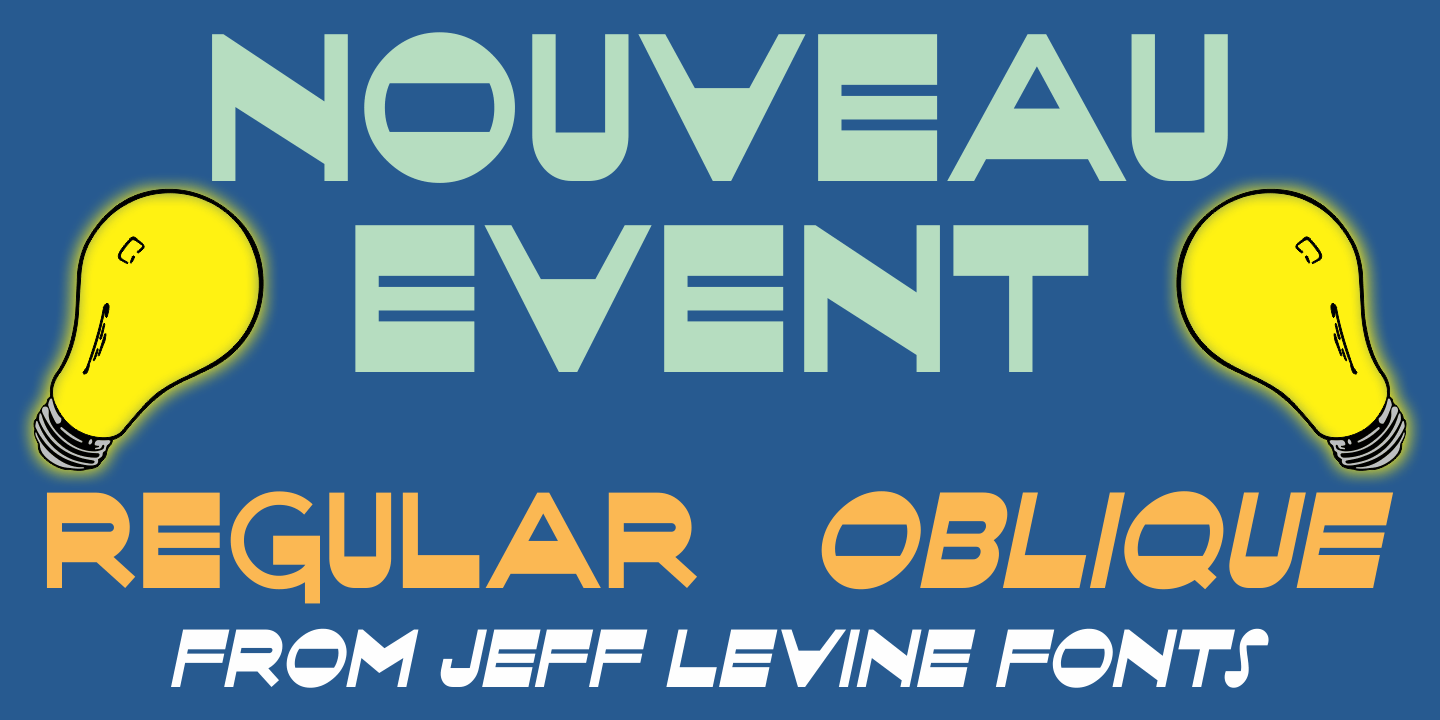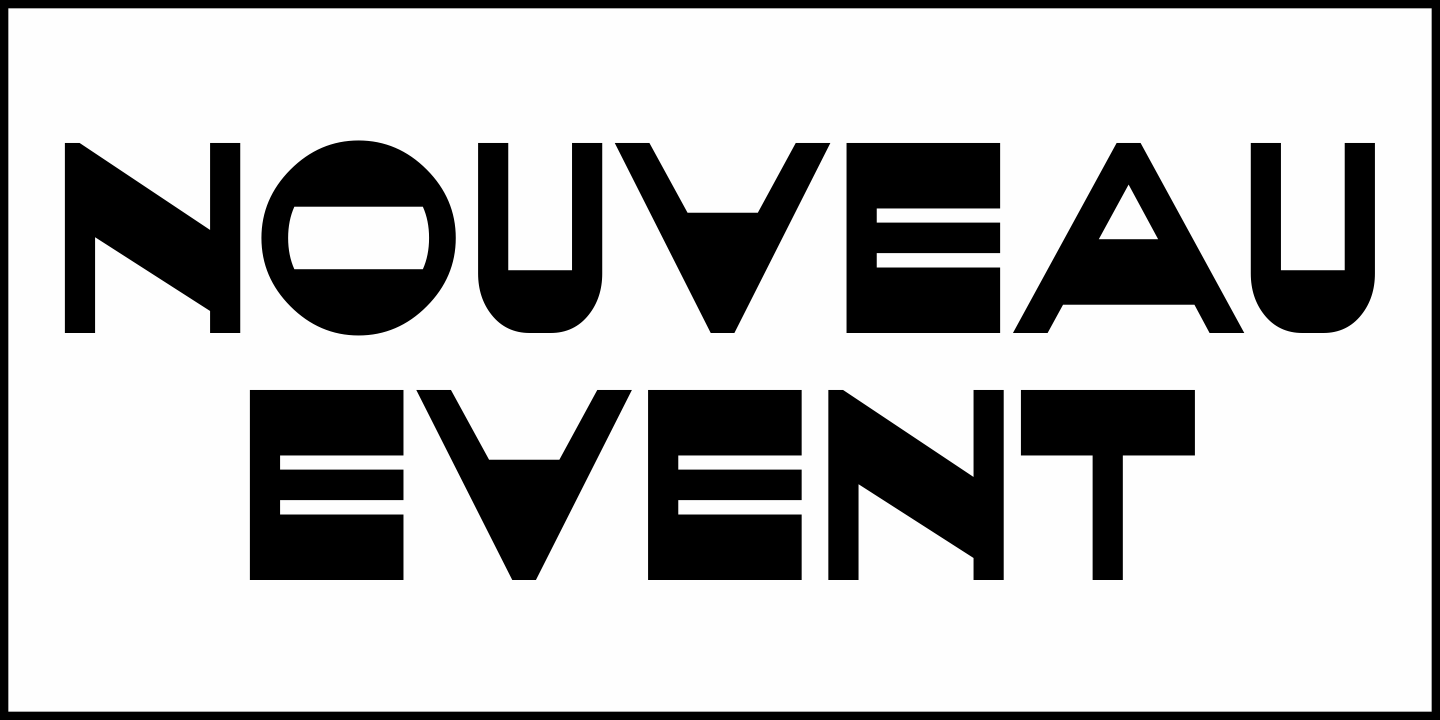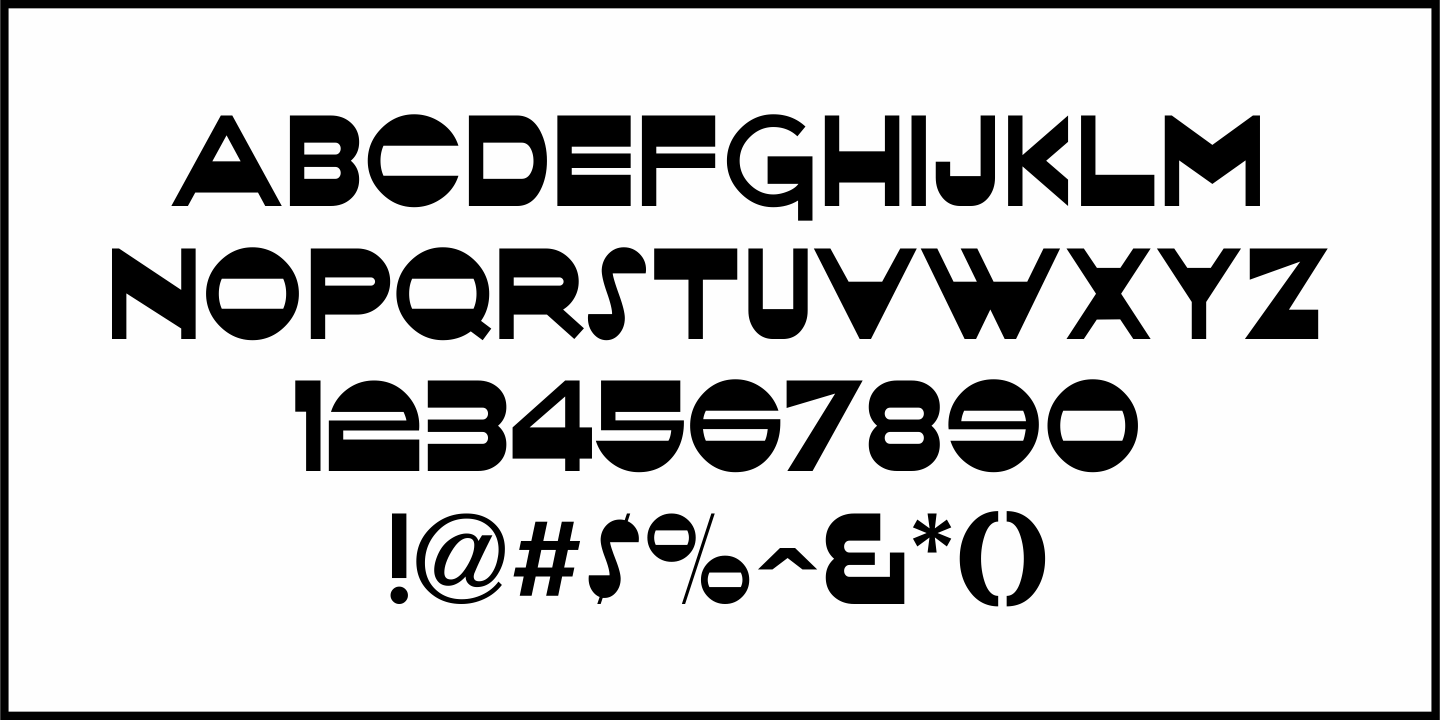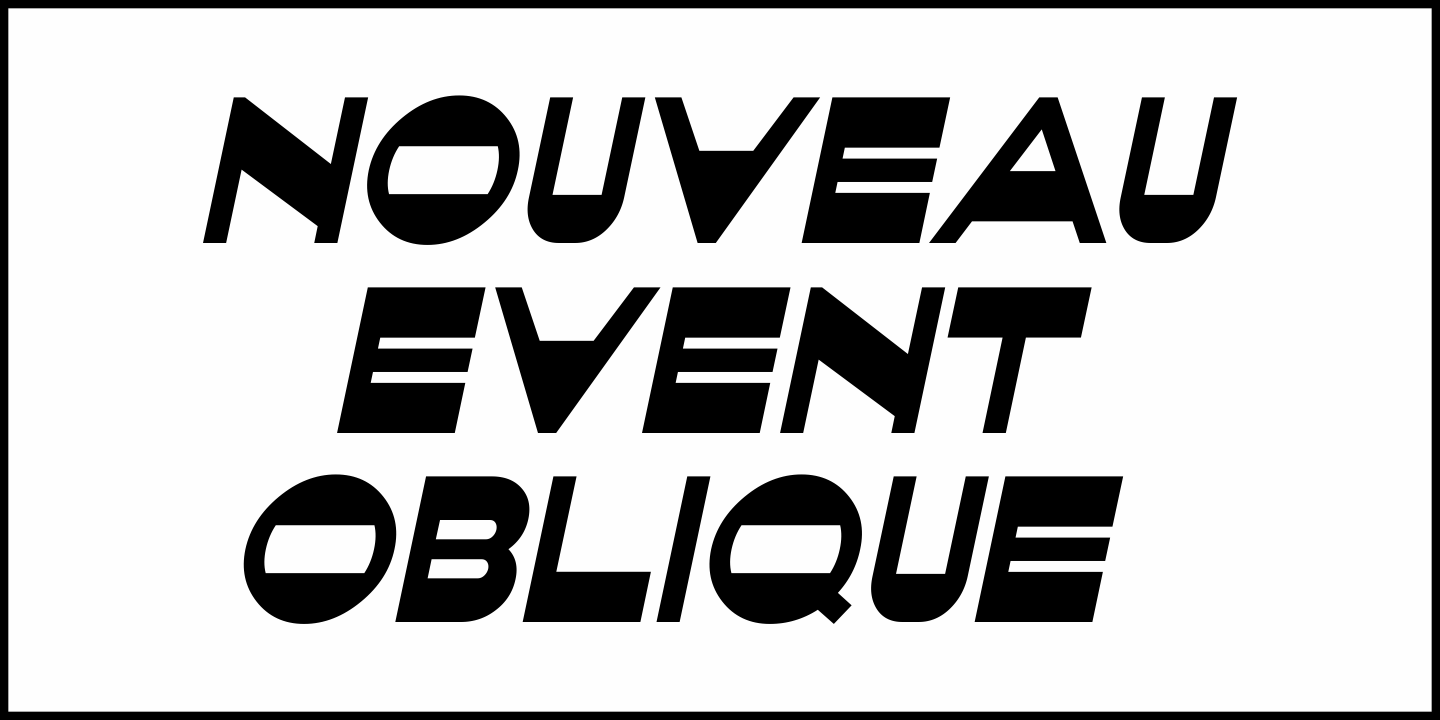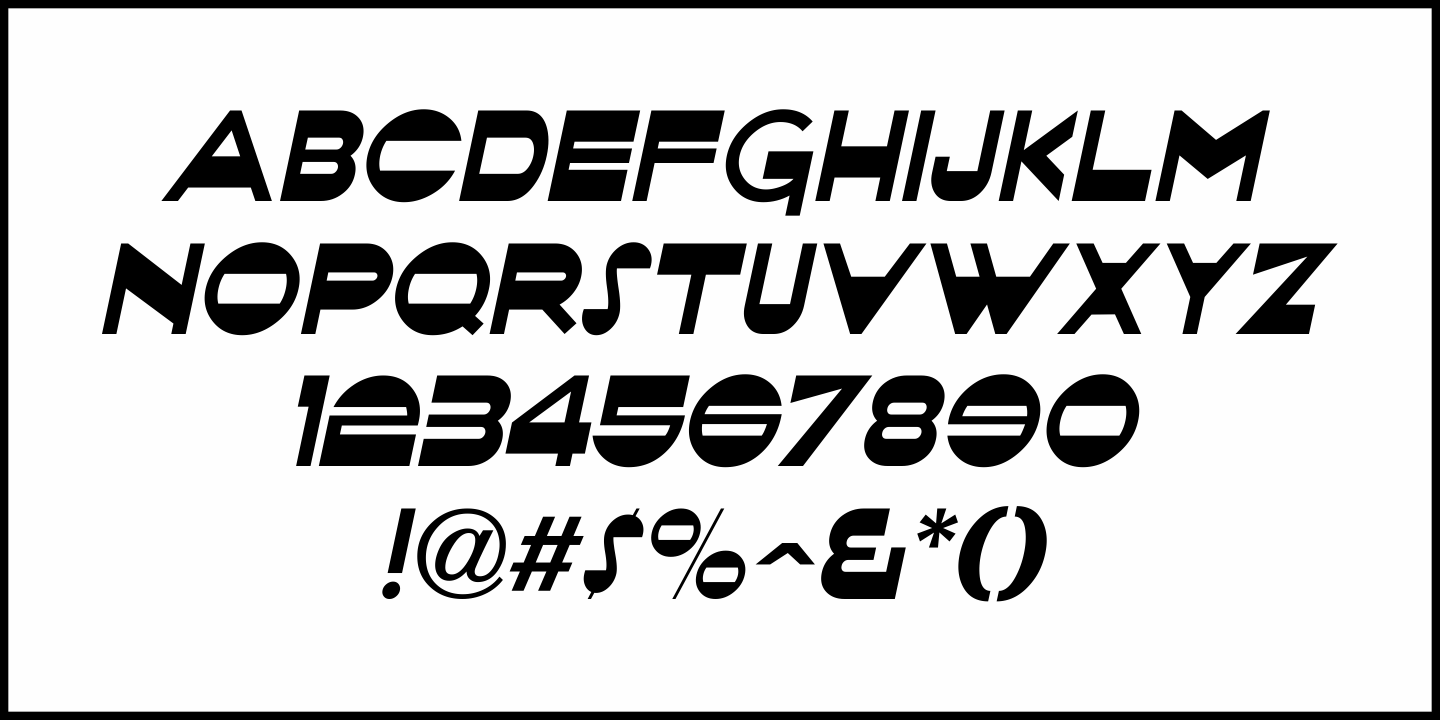
Nouveau Event
The 1920s film production company Tiffany-Stahl often used a hand lettered Art Nouveau novelty type design with thick horizontal lines in their various film release ads. One such ad was in the August 11, 1929 of 'The Film Daily”.
This served as the model for Nouveau Event JNL, and is available in both regular and oblique versions.